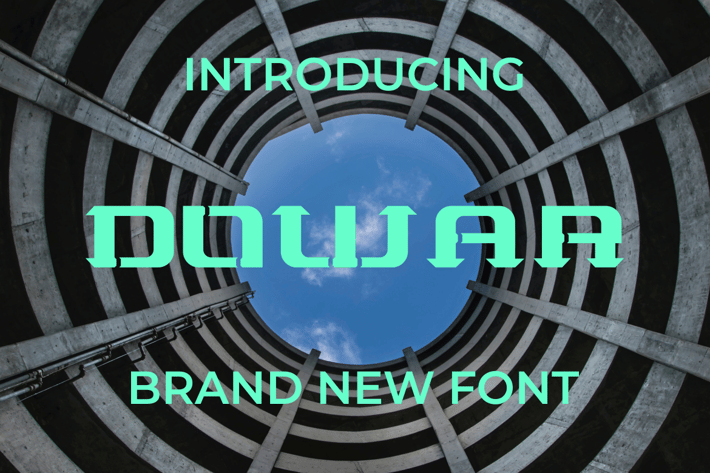
DOWAR Font
Introducing our new product DOWAR Font - Modern Font
DOWAR Font - Modern Font is a bold and authentic display font. The font is suitable for any branding project like logo, t-shirt printing, esport, and many more. outstanding in a wide range of contexts.